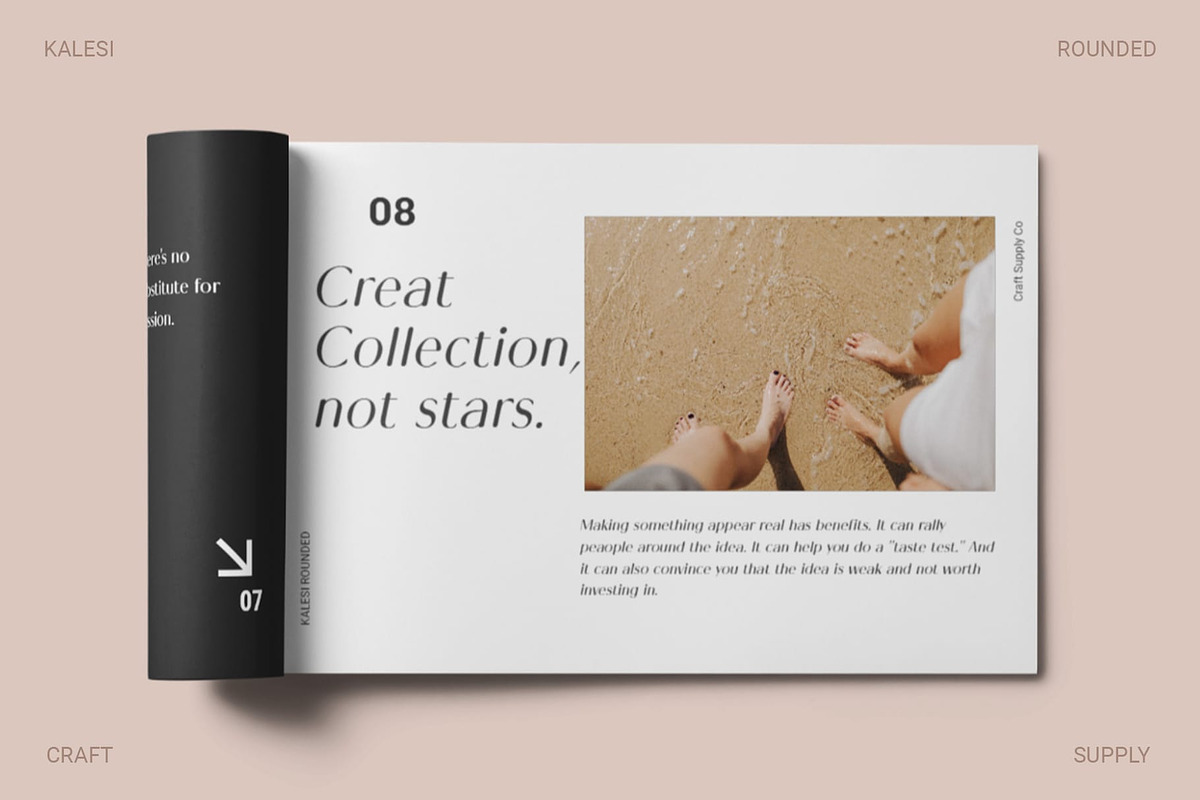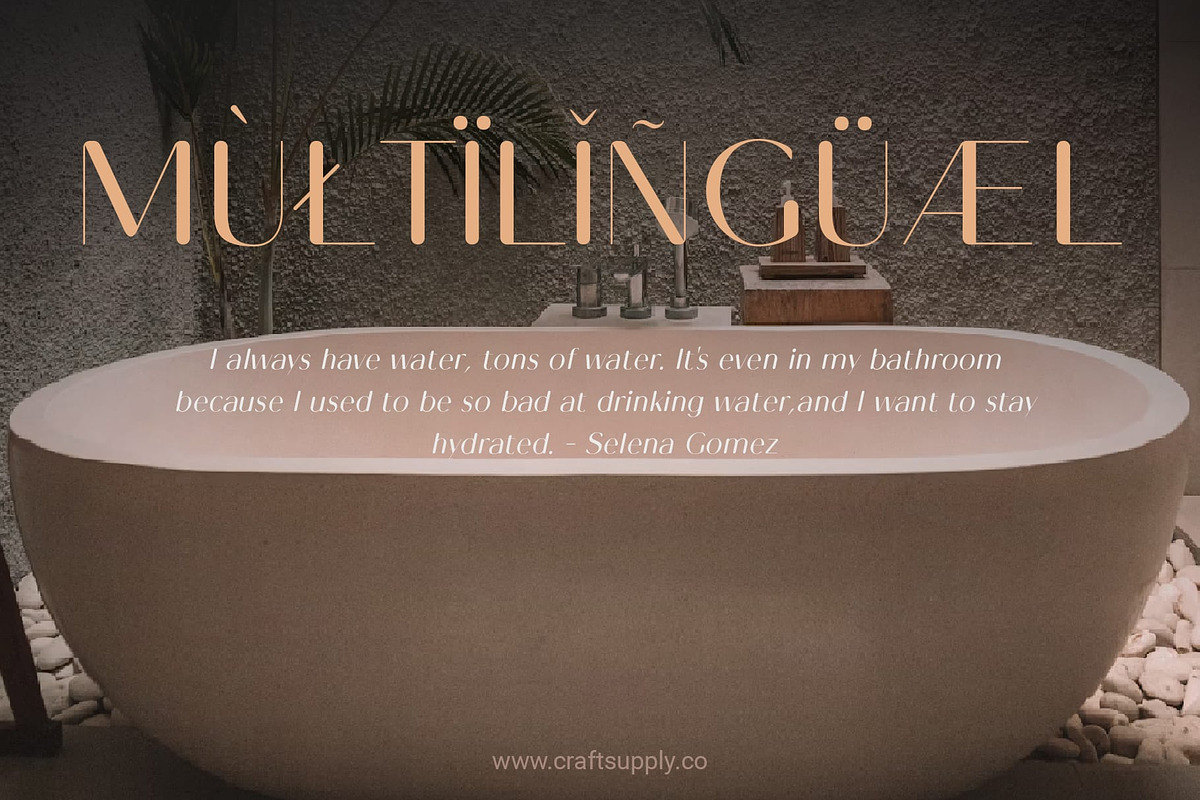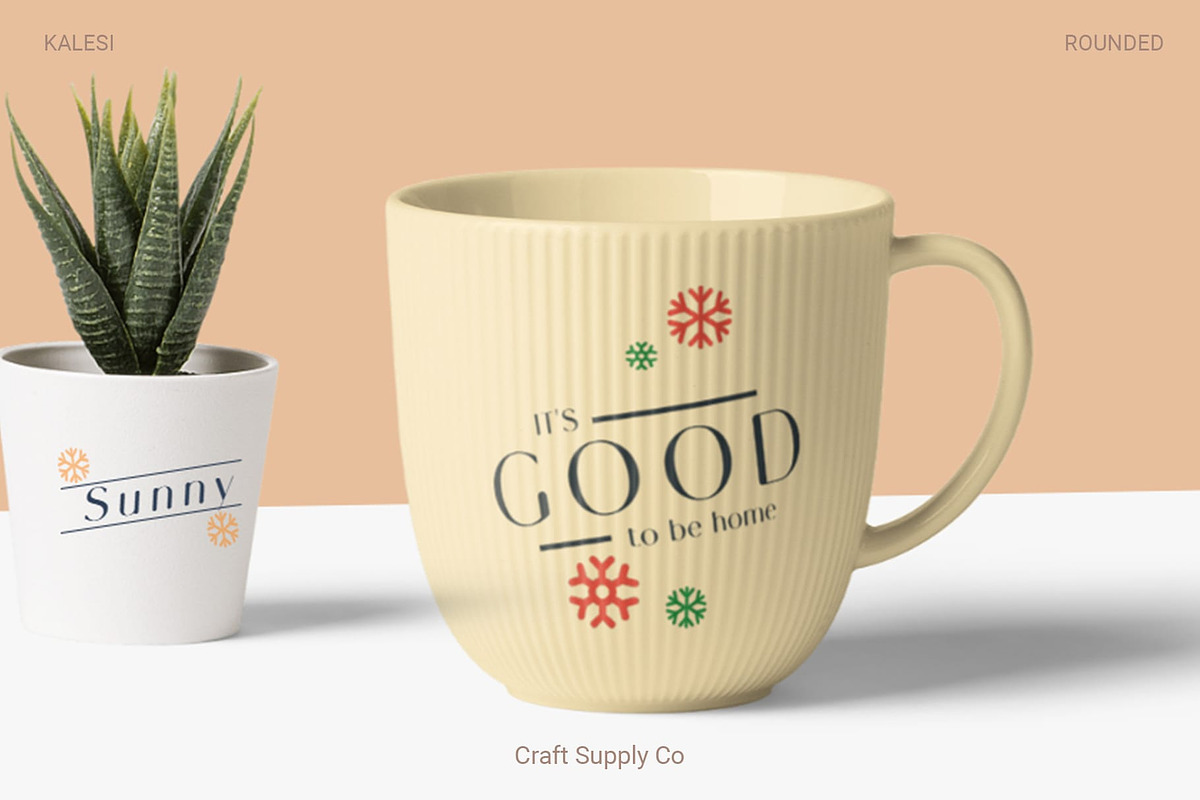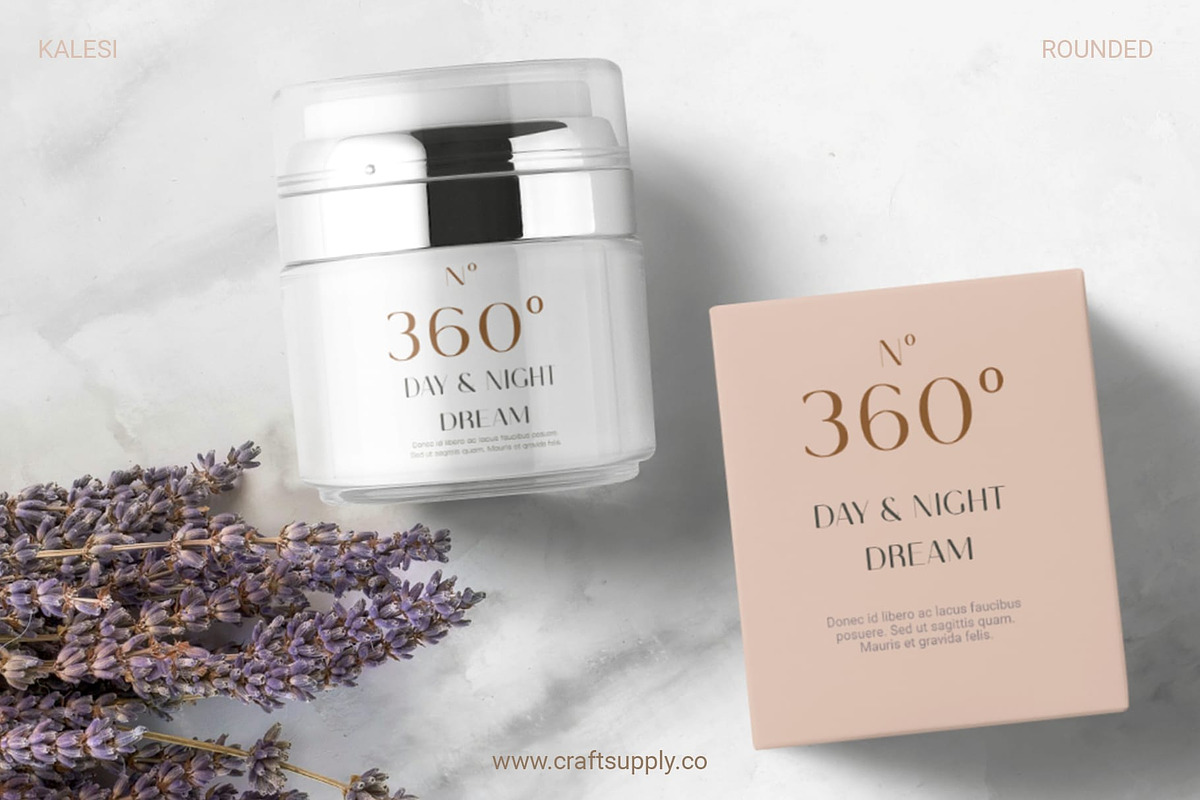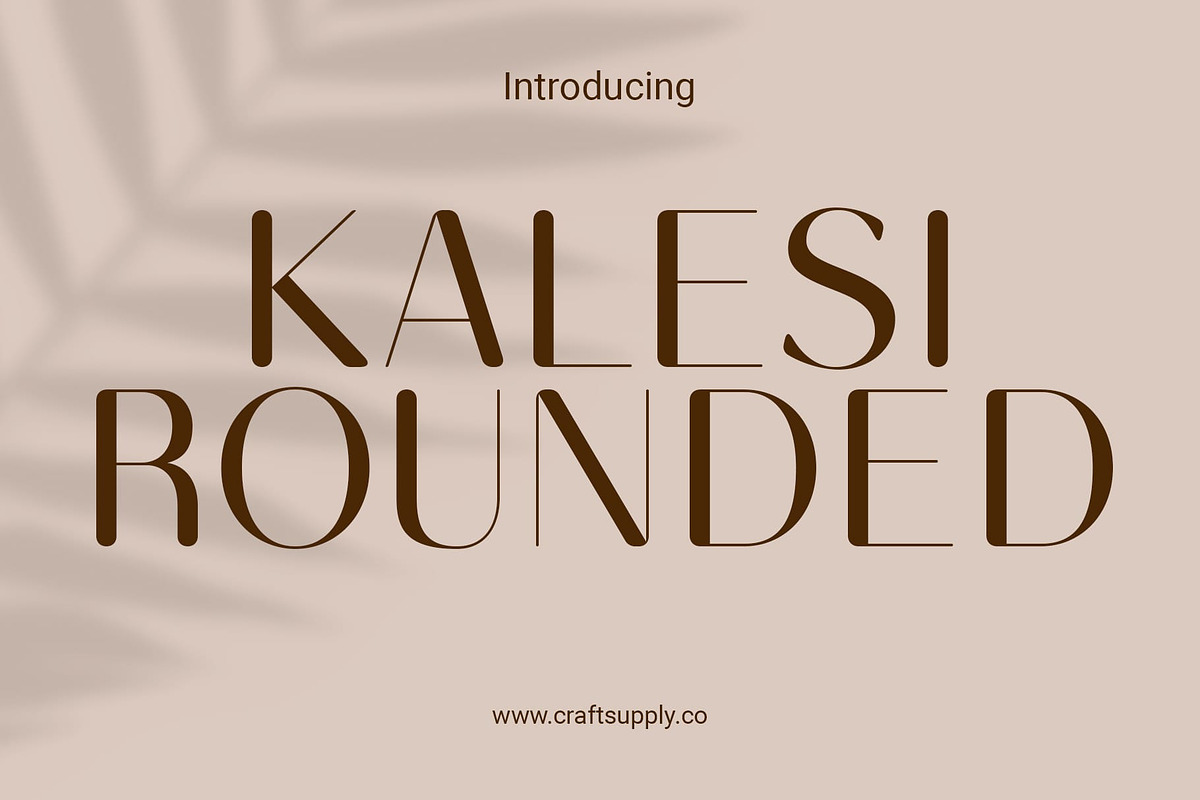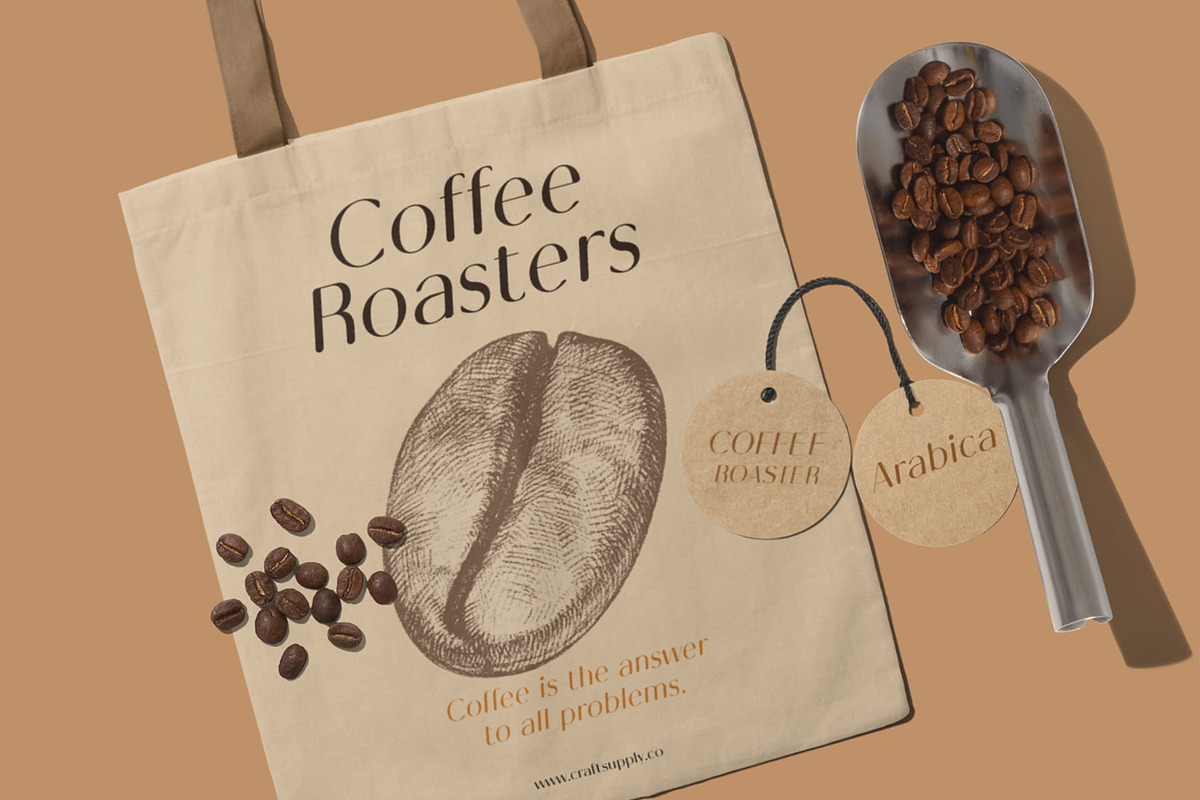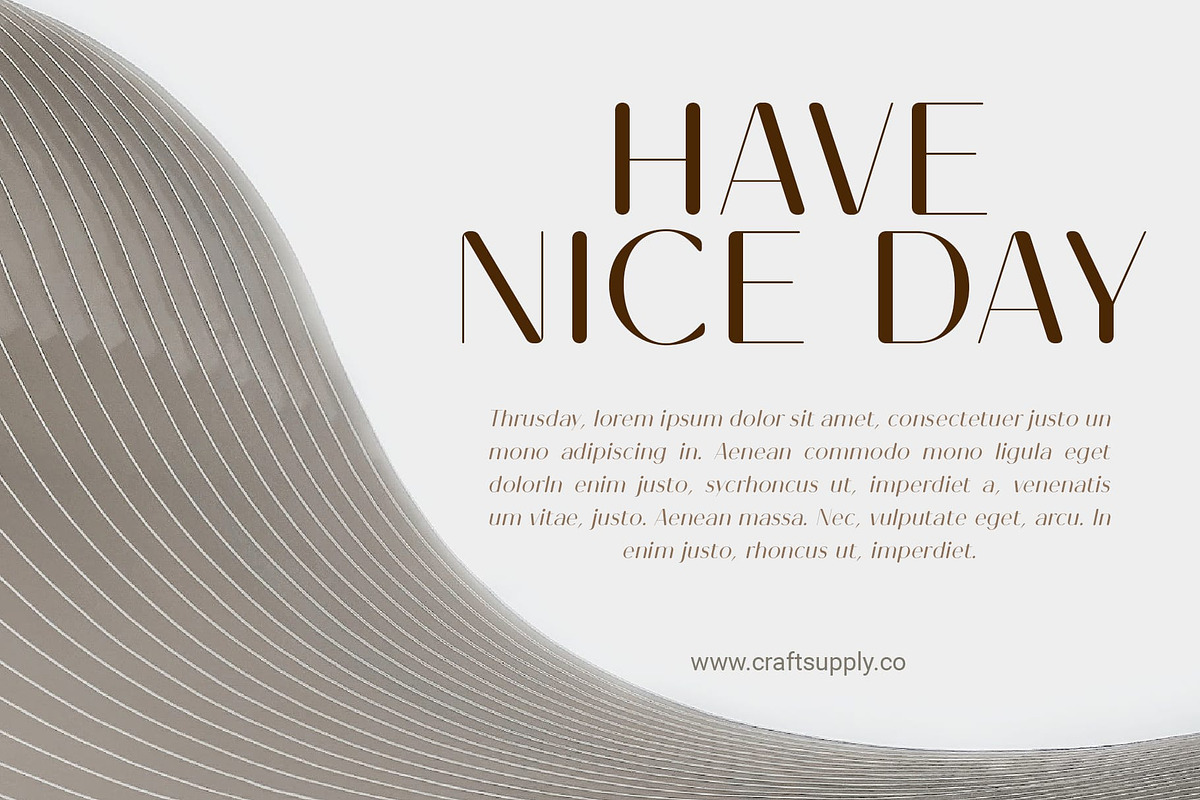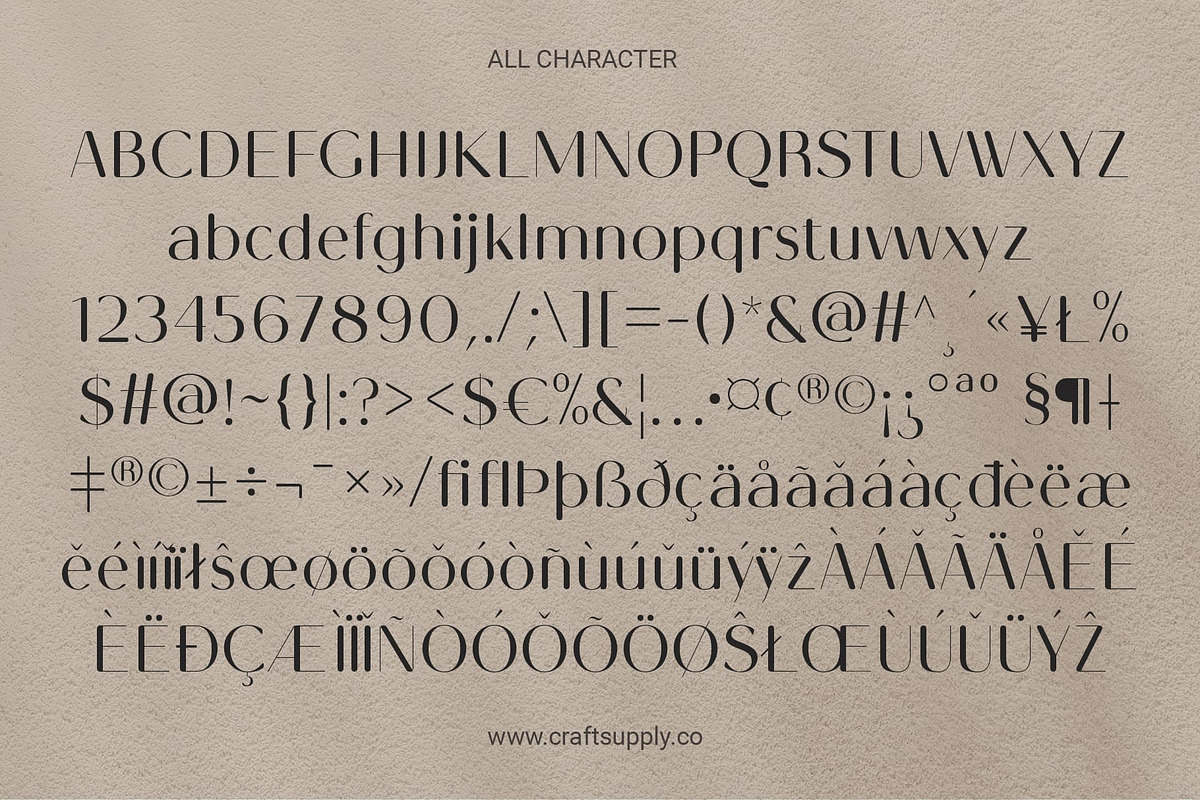
Kalesi Rounded
Kalesi Rounded: Embodying Modern Elegance
High Contrast and Minimalist Form Kalesi Rounded features a striking high-contrast sans serif design with minimalistic shapes, embodying sleek modernity and sophistication.
Dynamic Stroke and Rounded Aesthetics With its dynamic strokes and rounded aesthetics, This font exudes a contemporary vibe that is both approachable and visually appealing.
Perfect for Modern Designs Tailored for modern design projects, This font is the ideal choice for conveying a sense of freshness and innovation across various mediums.
Versatile Application From branding to web design, This font versatility shines through, offering a seamless integration into a wide range of design contexts.
Modern Typeface for Modern Times This font stands as a testament to modern elegance, with its high contrast, minimalist form, and dynamic stroke rounded aesthetics. Whether in print or digital, it brings a touch of sophistication to any design project, making it a must-have for contemporary designers seeking a fresh and modern look.